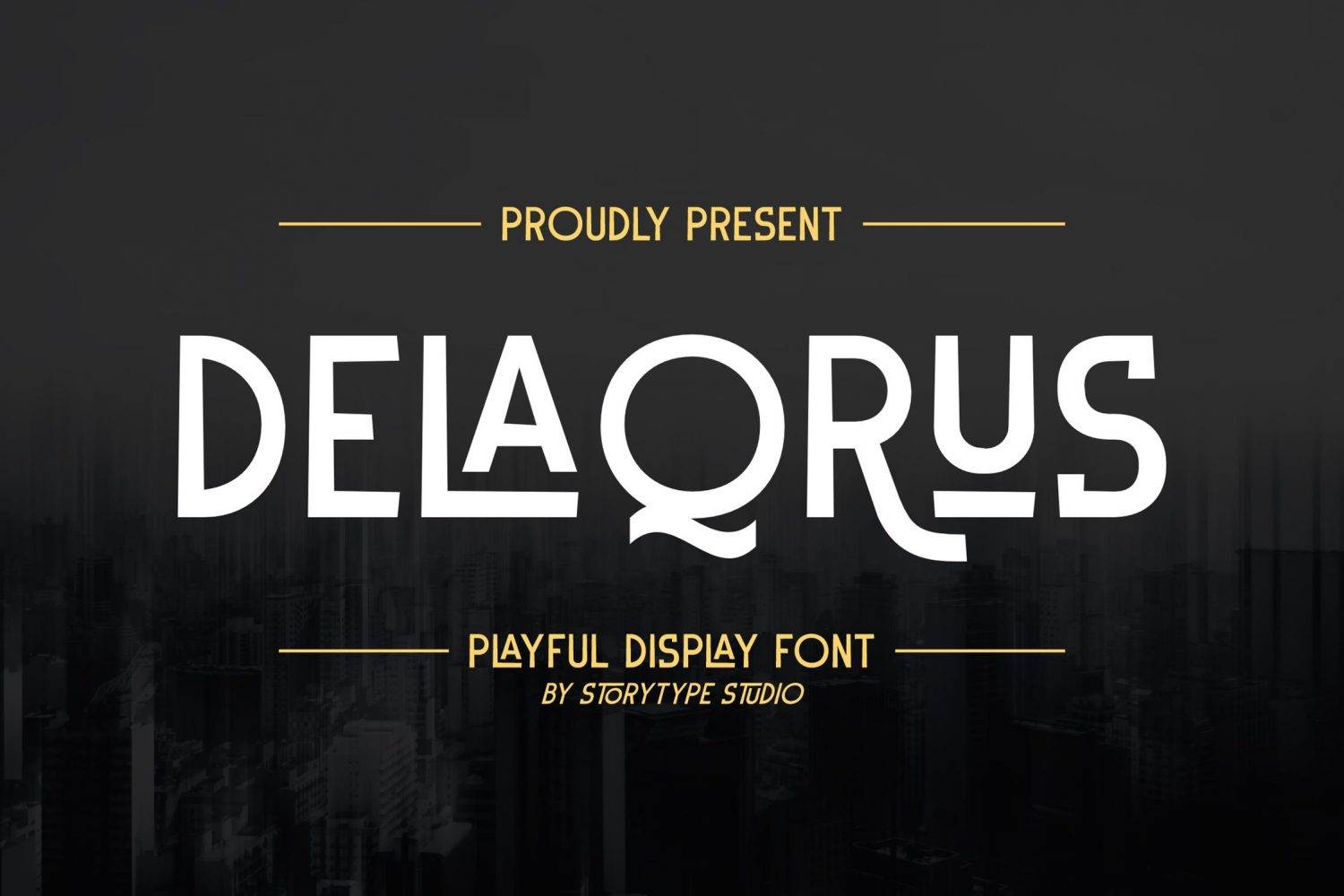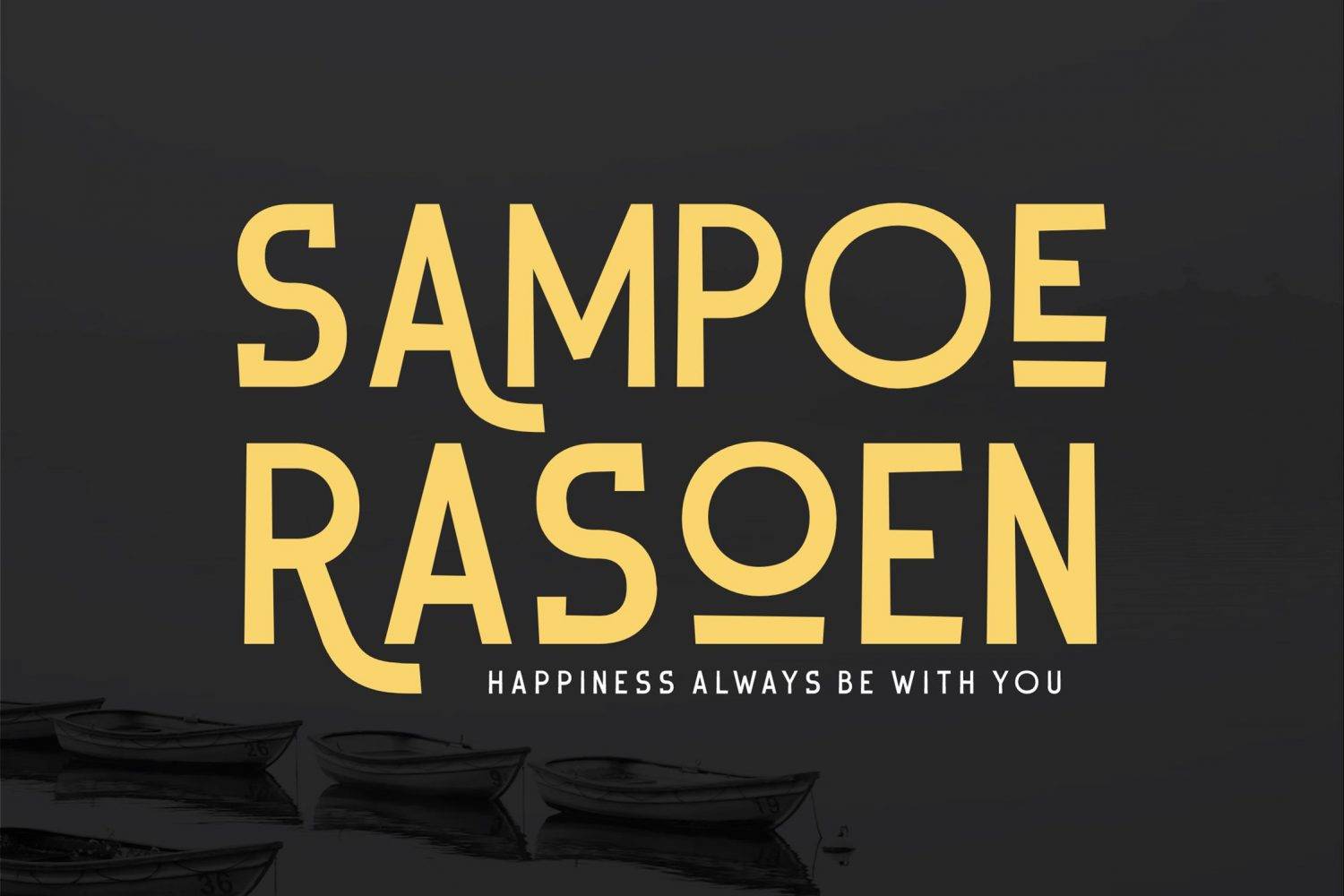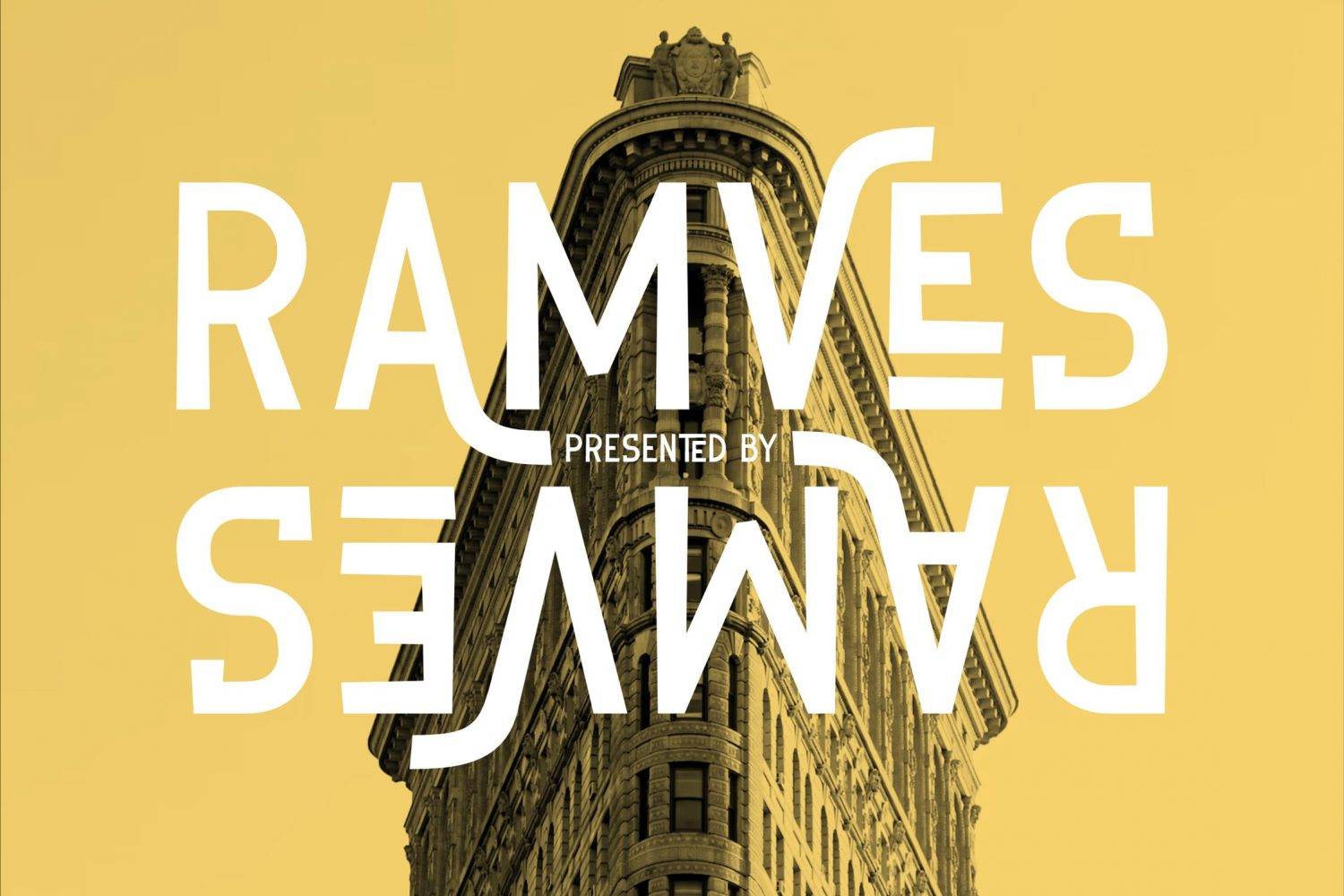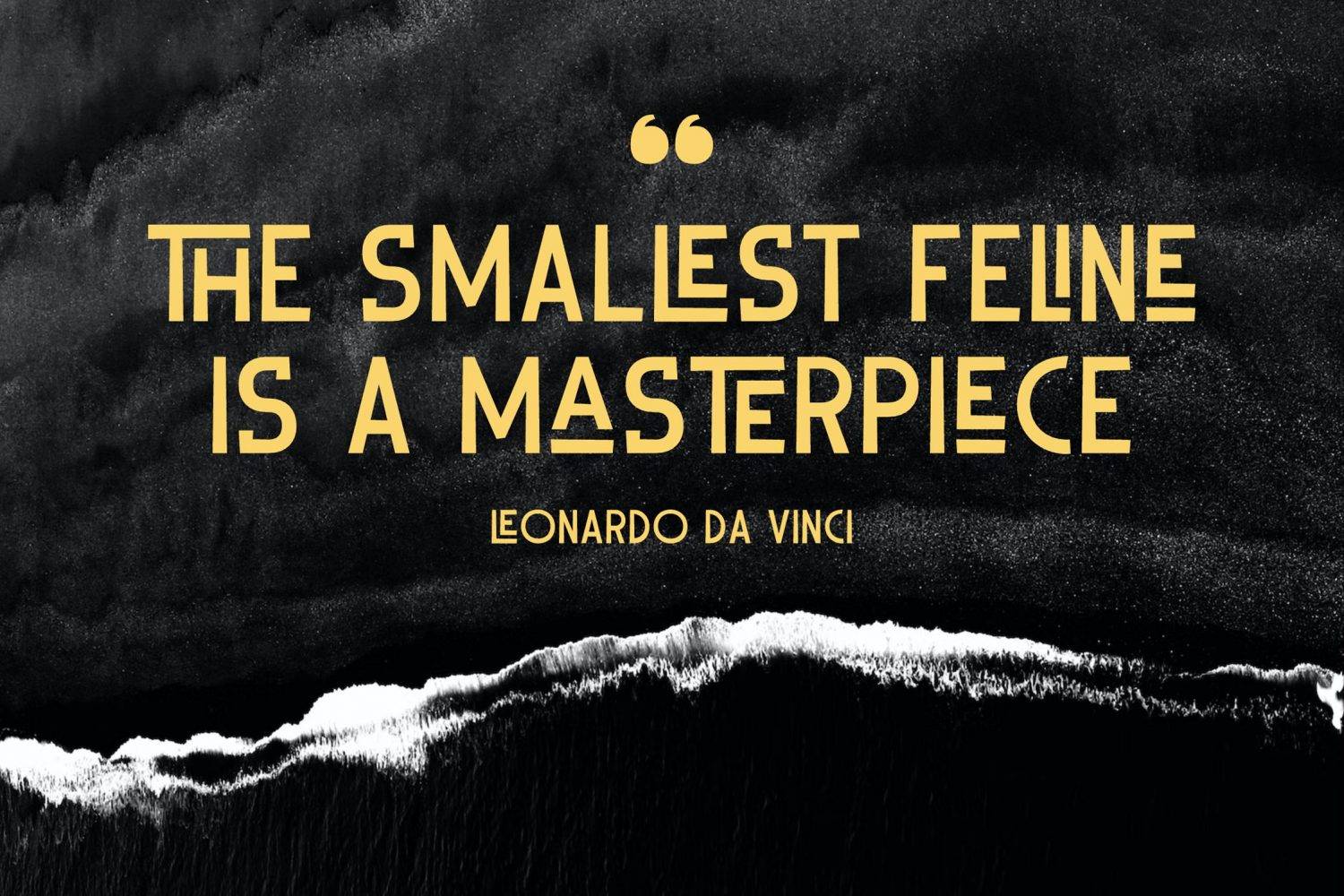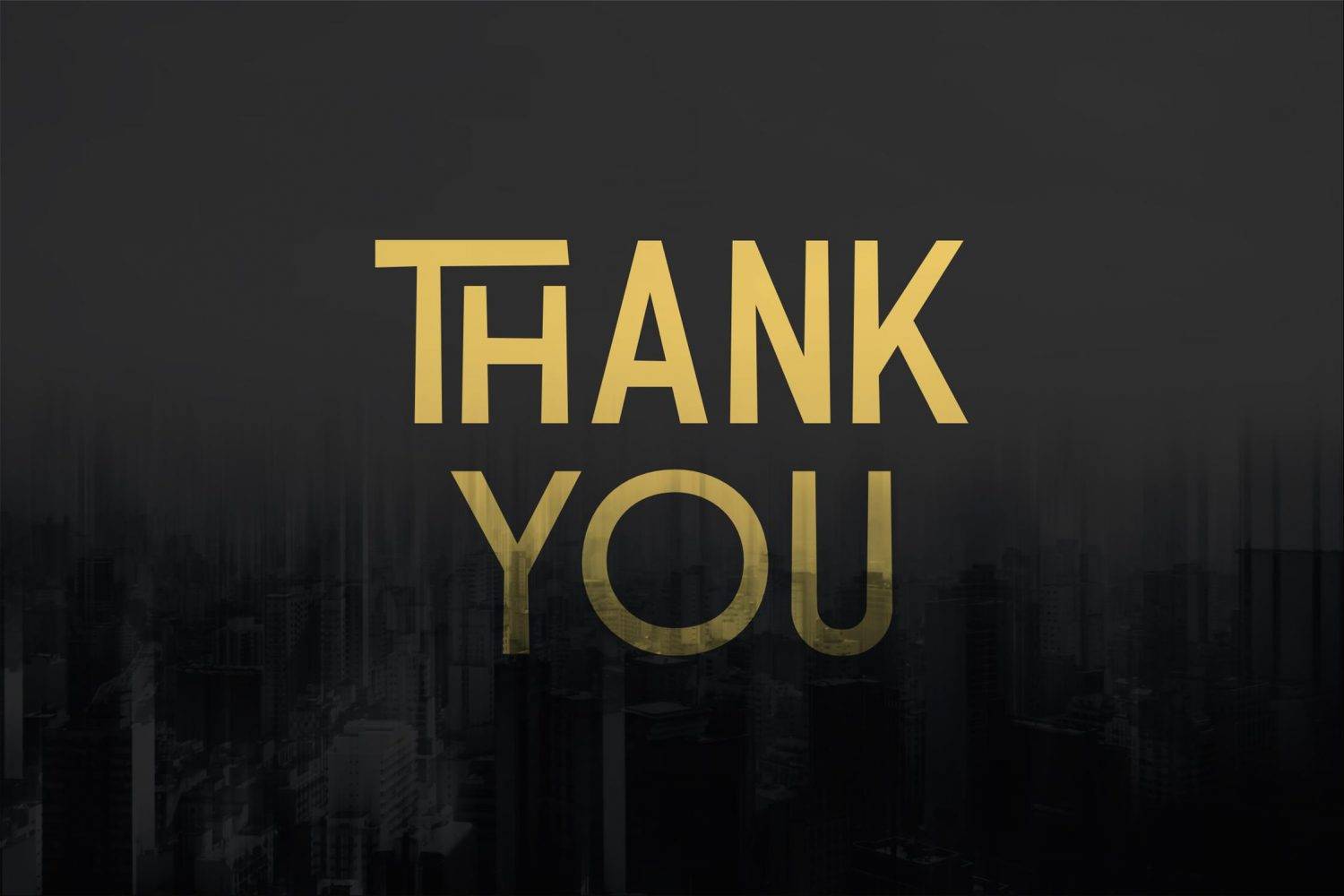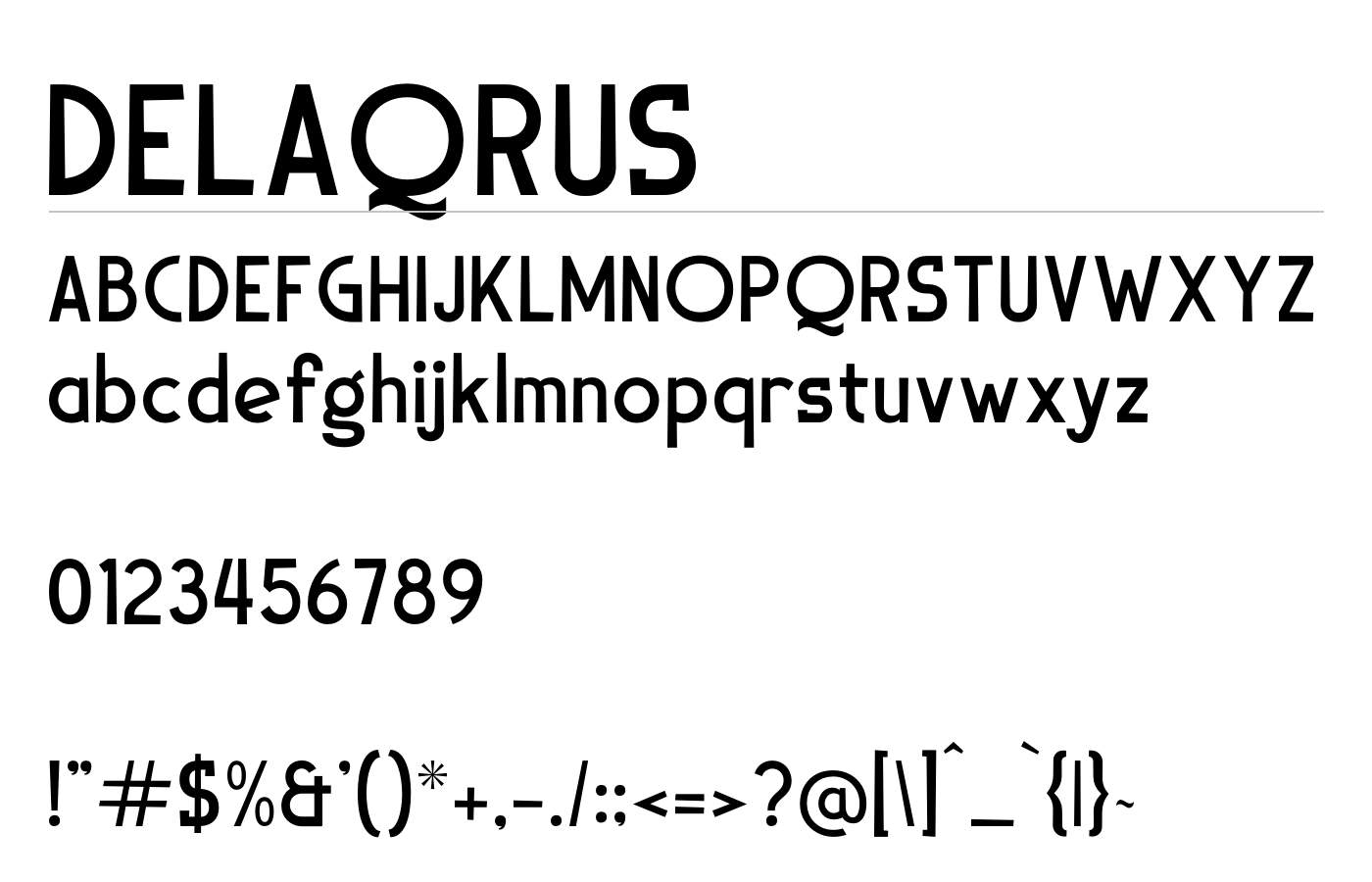
Delaqrus is a distinctive sans serif font with a slightly condensed width and a quirky, playful character. Its clean stroke contrast and unique letterforms, like the stylized Q and single-story g, give it a modern yet approachable feel, making it ideal for creative branding, headlines, and editorial design that seek a friendly and memorable touch. This font works well for projects that want to stand out with a subtle blend of professionalism and personality.
Delaqrus Font